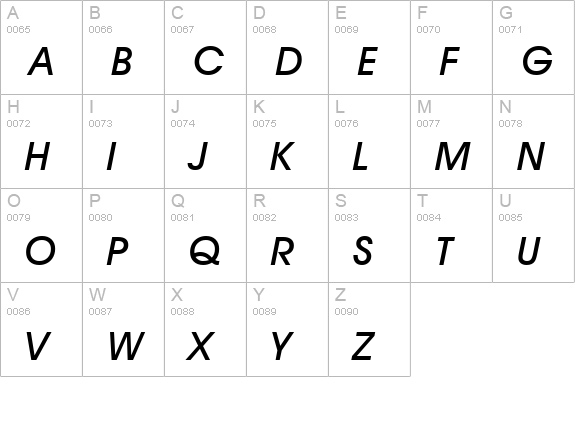
Avant Garde Medium Oblique BT Font Details
Avant Garde Medium Oblique BT is a balanced, medium-weight, italic variant in the Avant typeface family \xE2\x80\x94 well suited to sub-headlines, navigation, and balanced editorial work.
Avant Garde Medium Oblique BT font is a unique and modern typeface that pushes the boundaries of traditional typography. Its sleek and stylish design makes it perfect for adding a touch of sophistication to any project. The slanted, oblique style adds a dynamic flair to the text, making it stand out from the crowd. This avant-garde font is not only visually appealing but also highly versatile, suitable for a wide range of design projects including branding, advertising, and editorial design. Its medium weight strikes the perfect balance between elegance and readability, making it ideal for both display and body text. And the best part? Avant Garde Medium Oblique BT font is available for free download at FontsMarket.com. So why wait? Add a touch of modernity to your designs with this stunning font today!